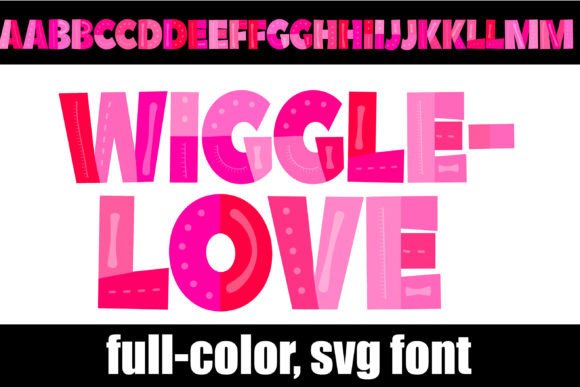
Get ready to add a dash of fun and a pop of color to your creative projects with Wigglelove, the most vibrant font in our collection! Picture this: bold letters dancing across your designs, each one brimming with life and personality. Wigglelove is not just a font; it's a celebration of creativity, a symphony of colors that will captivate your audience and leave them spellbound.
With its lively color palette and playful letter shapes, Wigglelove exudes a sense of joy and whimsy that is simply irresistible. Designed by the talented team at Illustration Ink, this font is a masterpiece that will elevate your designs to new heights. Whether you're creating eye-catching logos, vibrant posters, or quirky social media graphics, Wigglelove is your perfect partner in crime.
But that's not all! Wigglelove is a PUA-encoded font, which means you have effortless access to a world of amazing glyphs and ligatures. Unleash your creativity and let your imagination run wild as you explore the endless possibilities that this font has to offer.